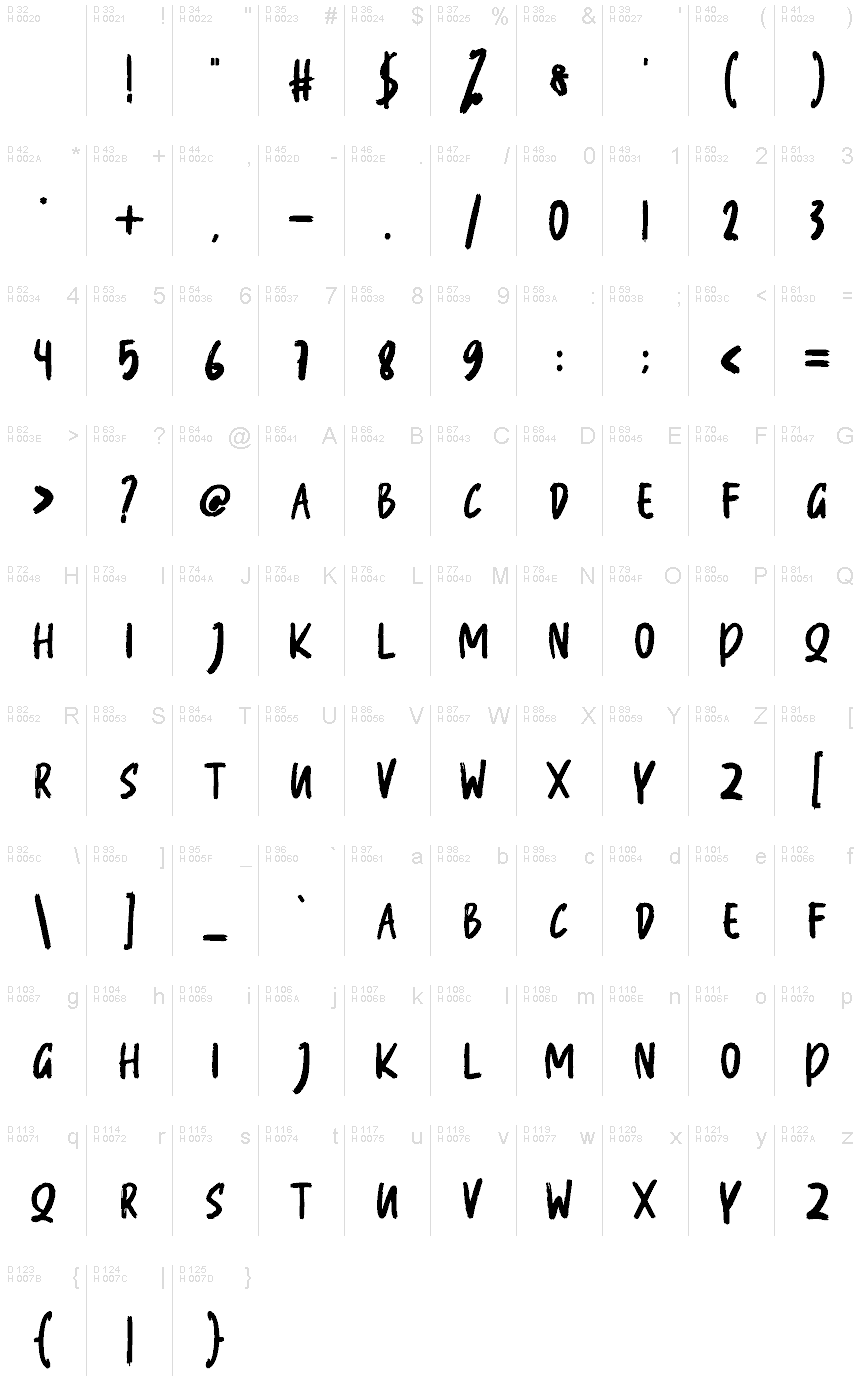
Kulisha
Kulisha font by Skiiller Studio is a condensed brush script with artistic influences. Expressive and casual, its letters are irregularly formed in width and weight creating thus a rough visual texture. This hand-drawn font has an interesting balance between natural imperfections, readability, and elegance when used at large sizes.
Free for most uses, Kulisha is the perfect addition to urban posters, graffiti artwork designs and book covers. It fits extremely well on logos or typography-centric murals. Title sequences for movies or video games for various platforms are also possible uses of this exceptional display font. This versatile typeface is also a great choice for packaging design as well as sports merchandise branding and promotional material design such as posters and banners among others.